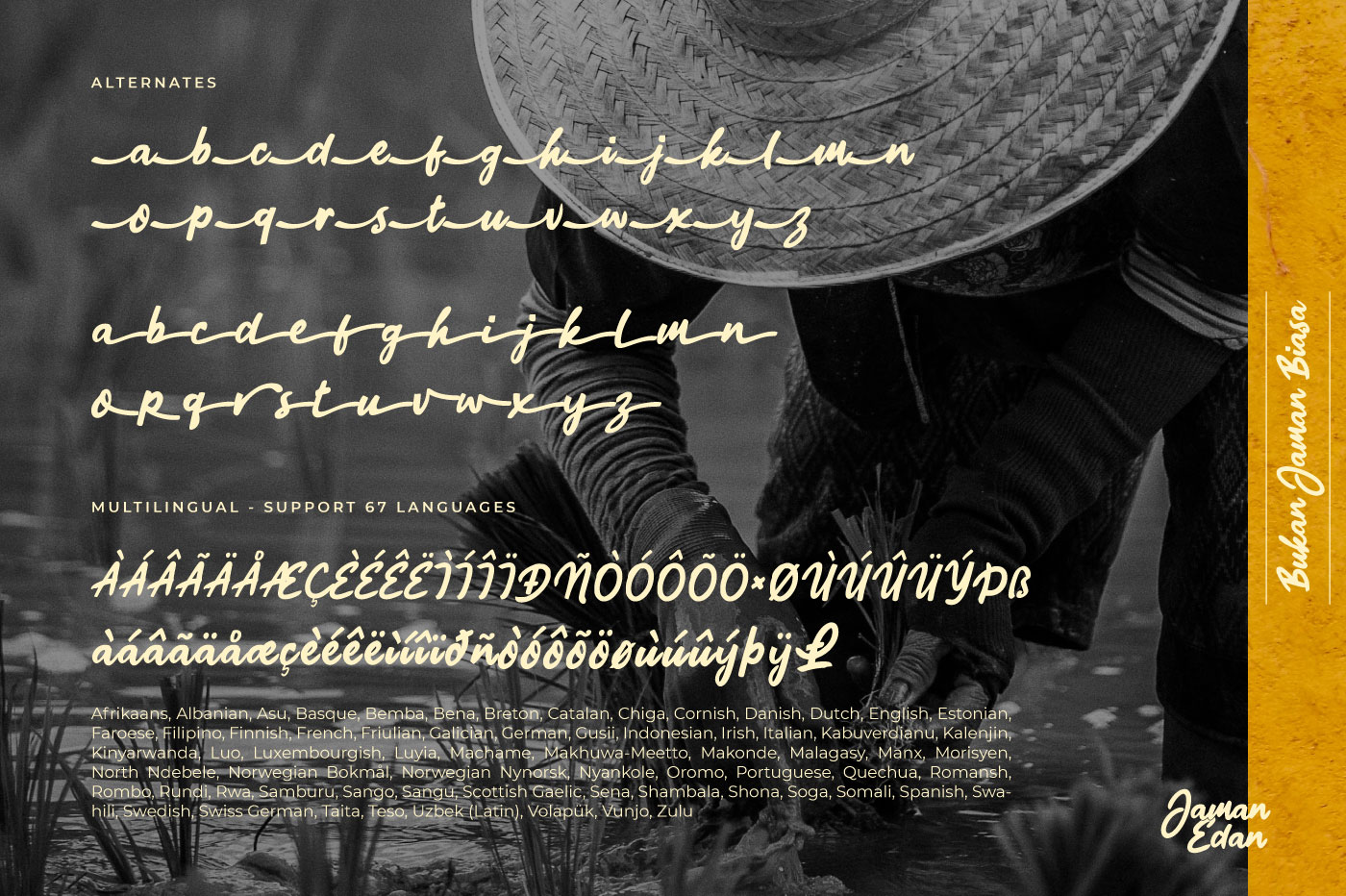
Jaman Edan Script Font
This is a script font comes with classic retro style, coupled with alternate characters that contain swashes make this font more unique, perfect for anyone who likes vintage style like this.